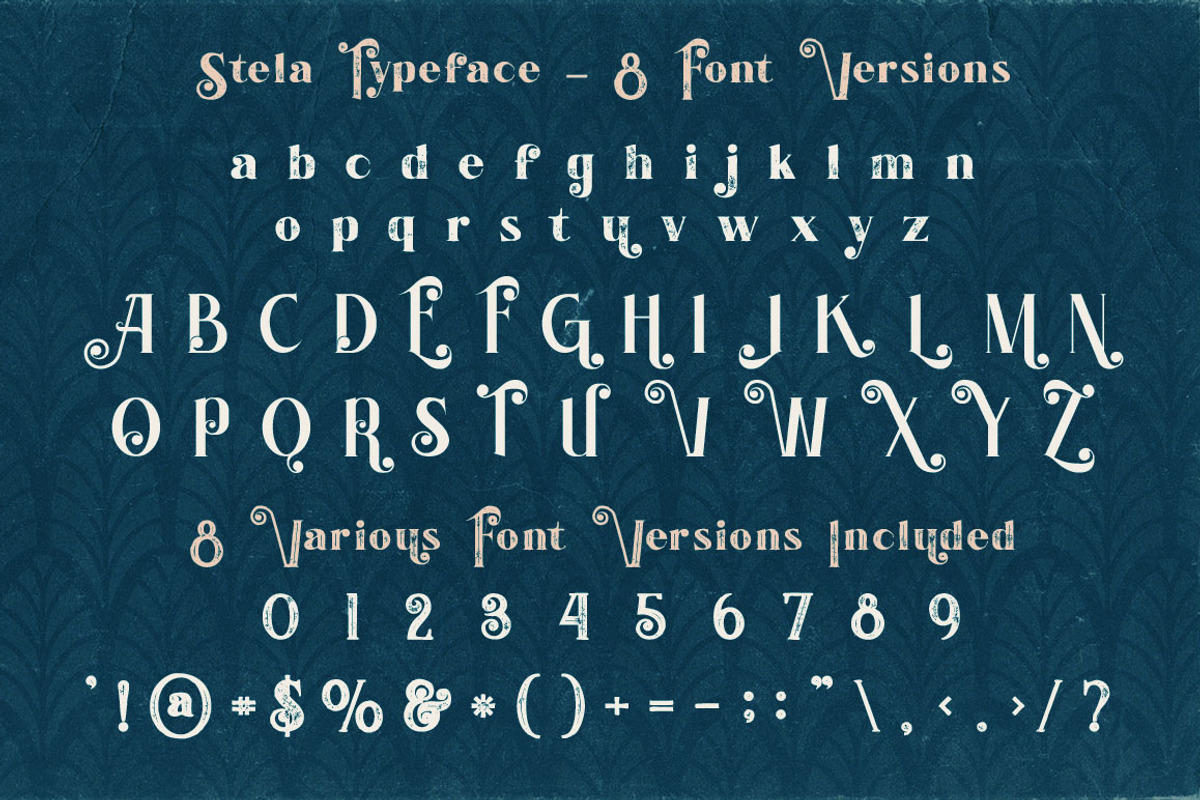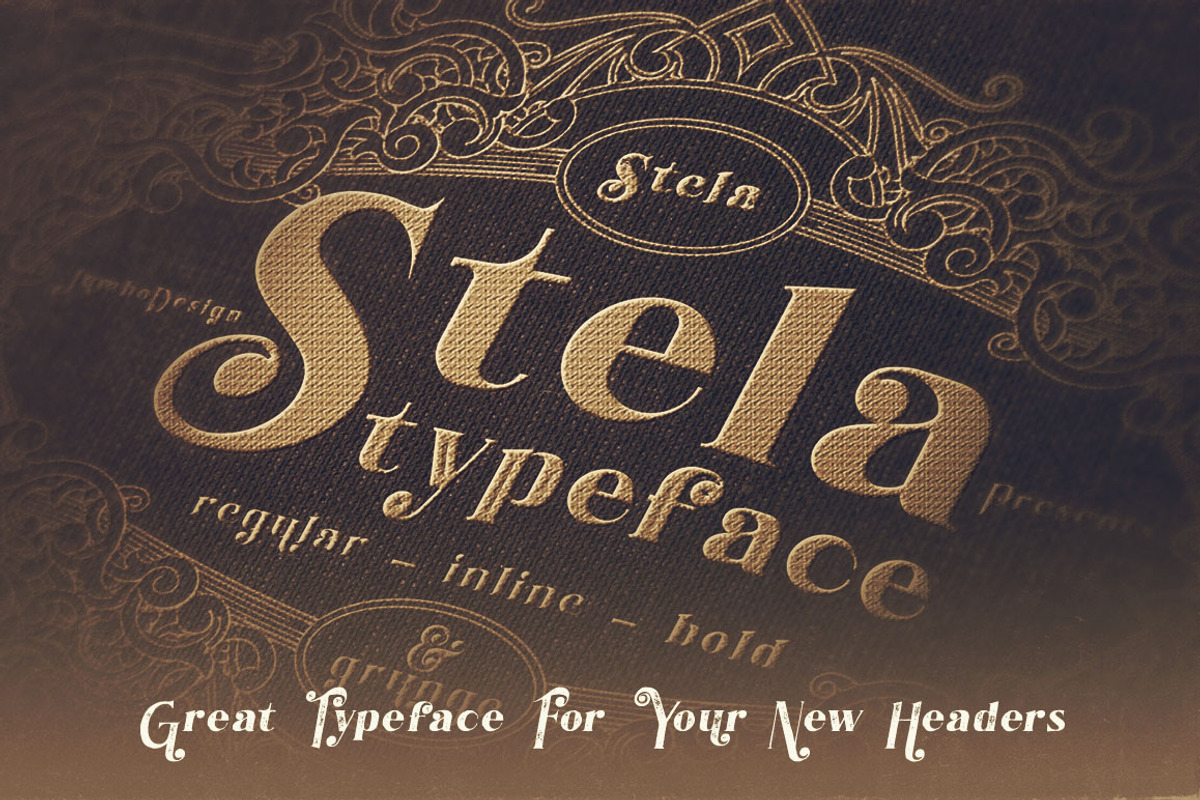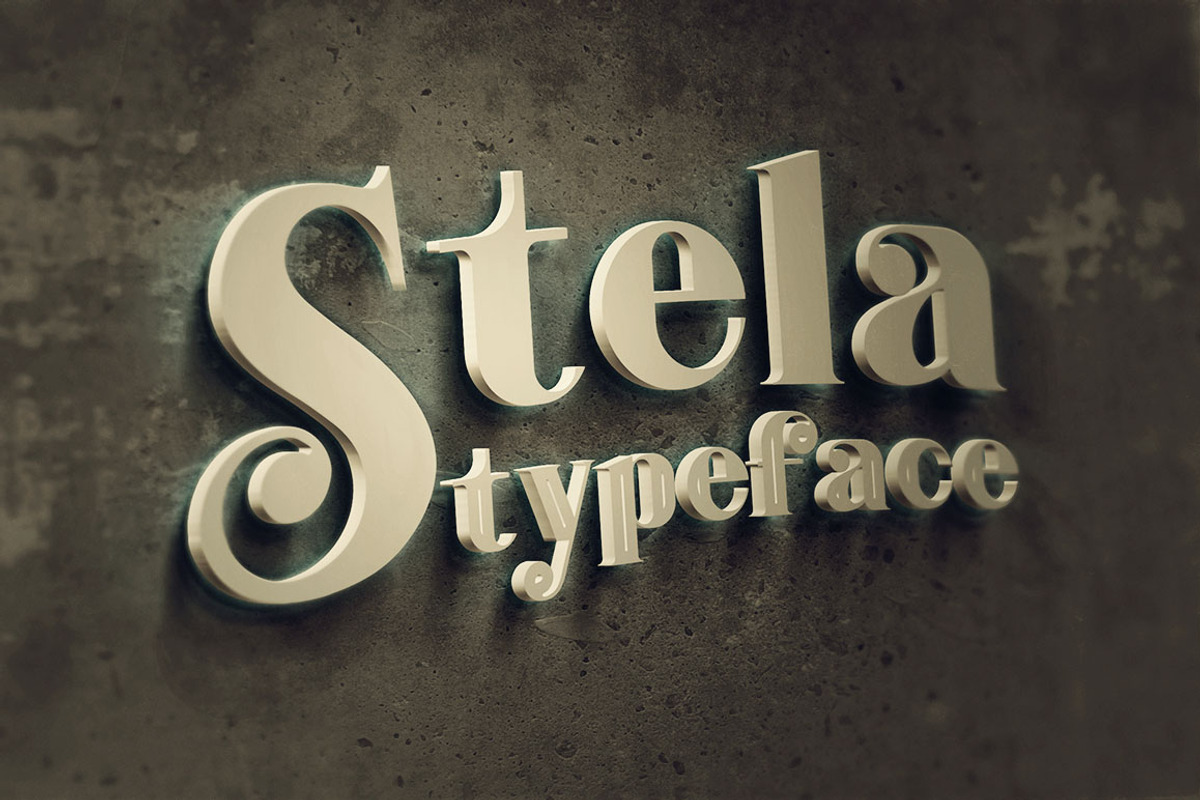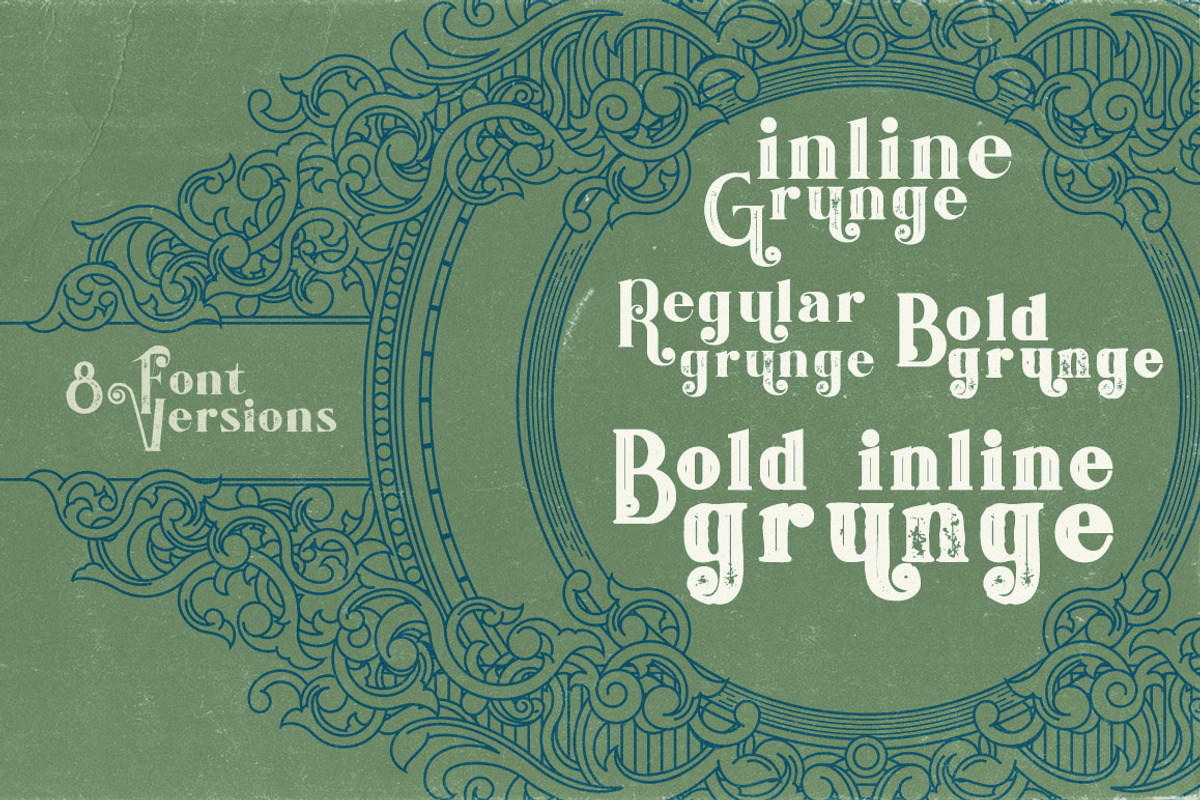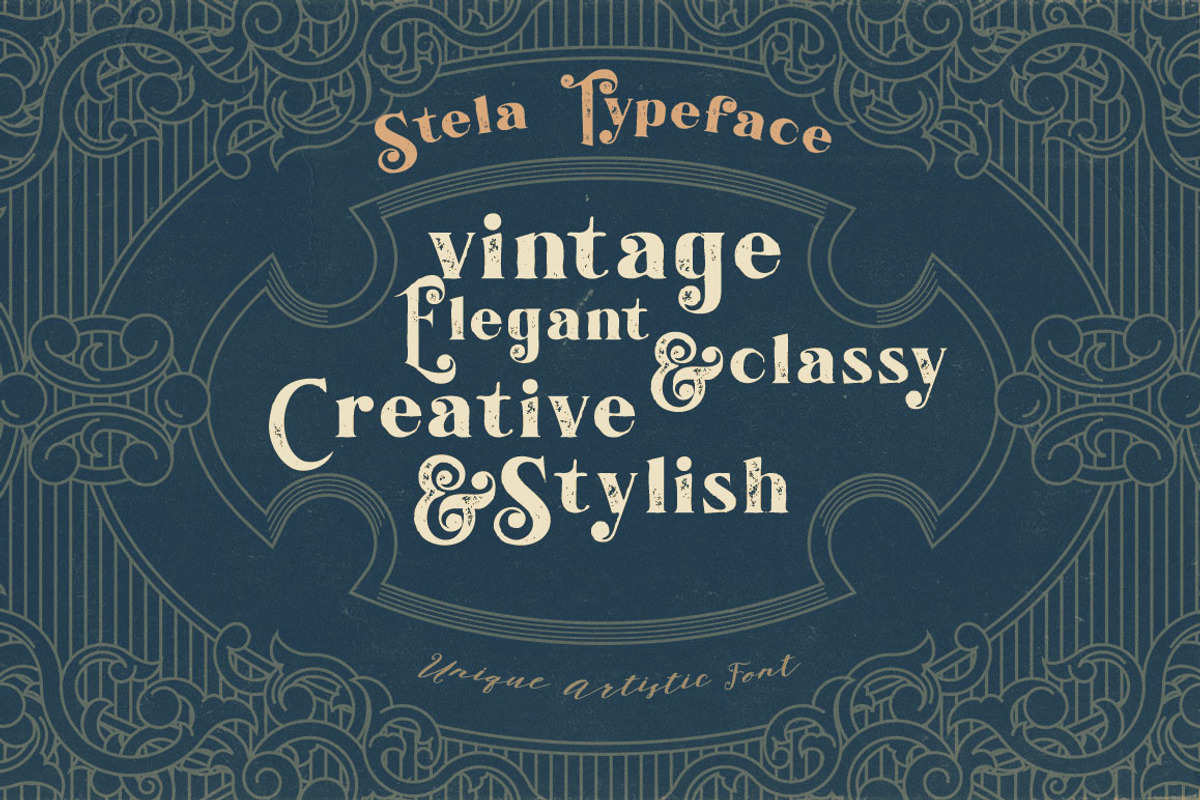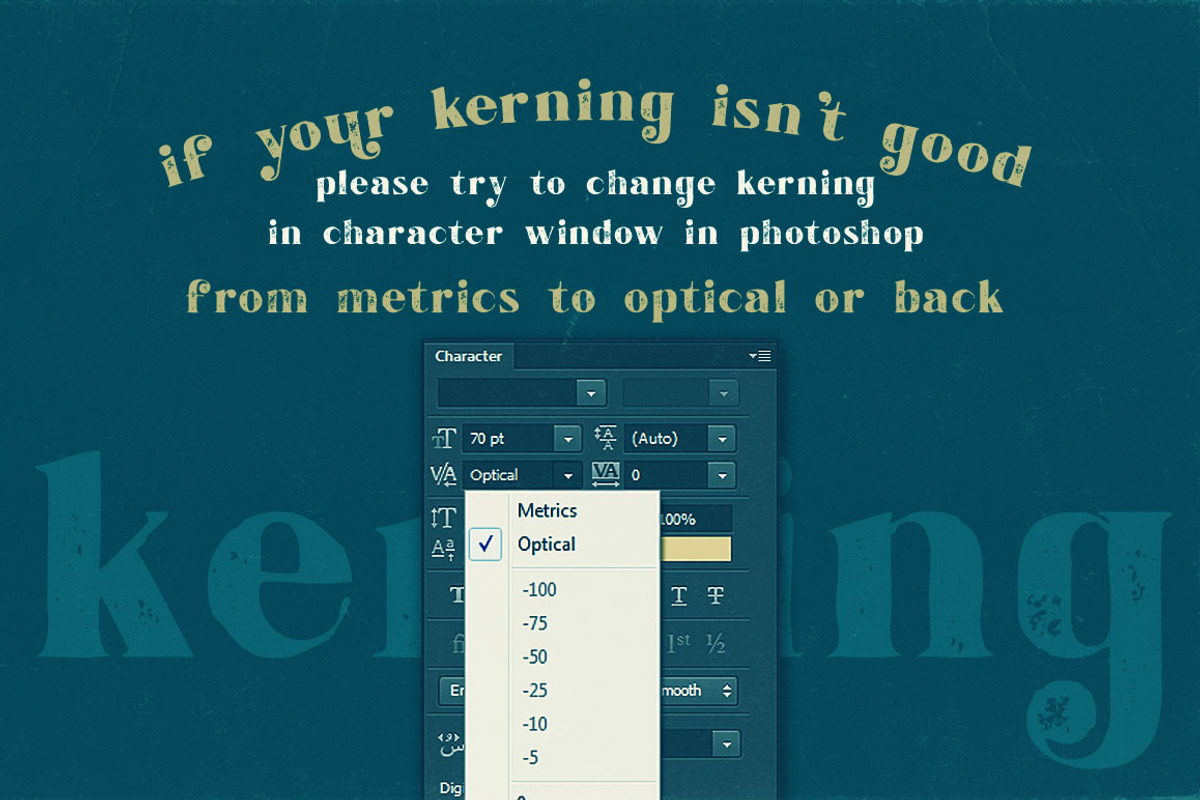
Stela - Display Font
Unique vintage & grunge style custom display font with 8 styles: regular and grunge, inline and grunge, bold & grunge, bold inline and grunge.